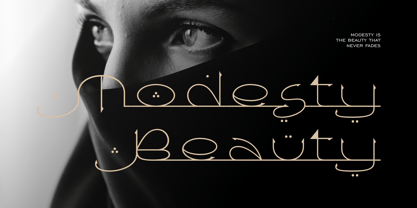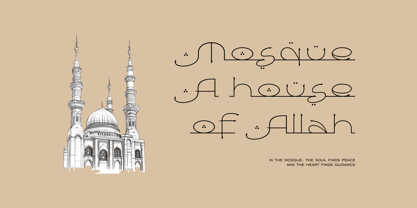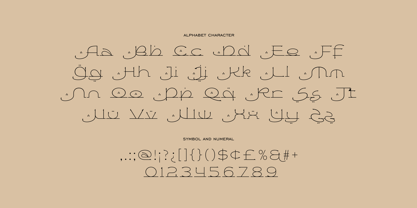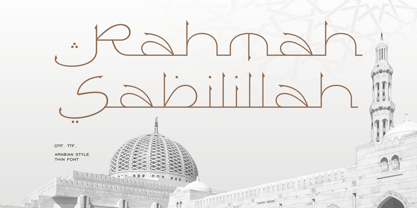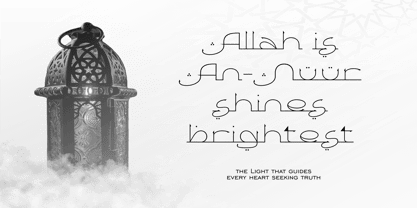
Rahmah Sabililah
by Runsell Type
The Rahmah Sabililah Font Family was designed by Satia Hayu Prabowo and published by Runsell Type. Rahmah Sabililah contains 1 styles.
Rahmah Sabililah is a beautiful blend of traditional calligraphy and modern design. This font captures the fluidity and intricate elegance of Arabic writing, with graceful curves and sweeping strokes that evoke a sense of cultural sophistication. Perfect for projects that require an exotic, artistic flair, this font features soft, flowing letterforms that resemble the delicate strokes of hand-drawn Arabic scripts, while still maintaining legibility in a variety of settings. Ideal for branding, invitations, logos, and any design that needs a touch of refined elegance with an Eastern touch. Whether you're crafting a luxurious design or aiming for a unique visual style, this font adds a distinct, cultural aesthetic to your creations.
Designers: Satia Hayu Prabowo
Publisher: Runsell Type
Foundry: Runsell Type
Design Owner: Runsell Type